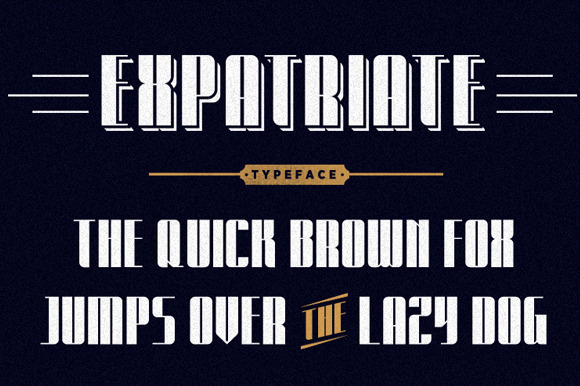
Expatriate Typeface
Expatriate is a typeface inspired by term itself with reference from the movie ‘The Expatriate’ (2012) and also a lot of European expatriate in my hometown, Bandung.